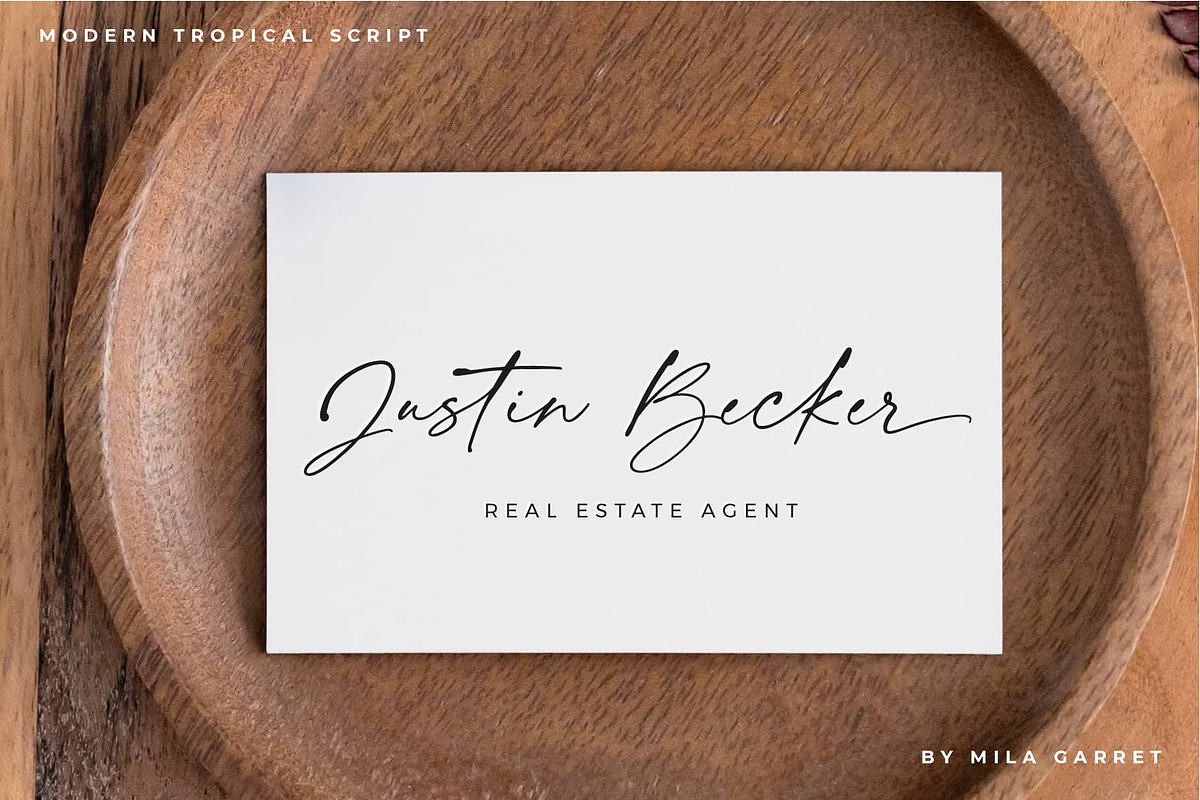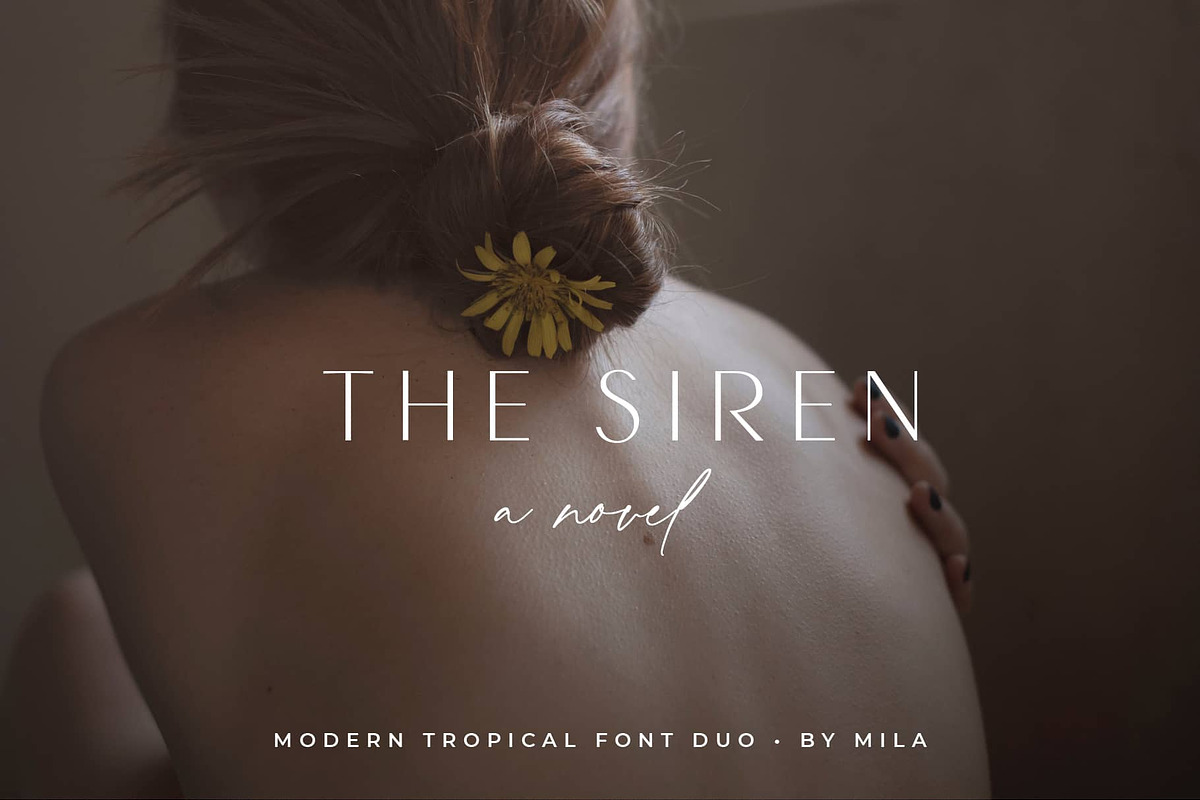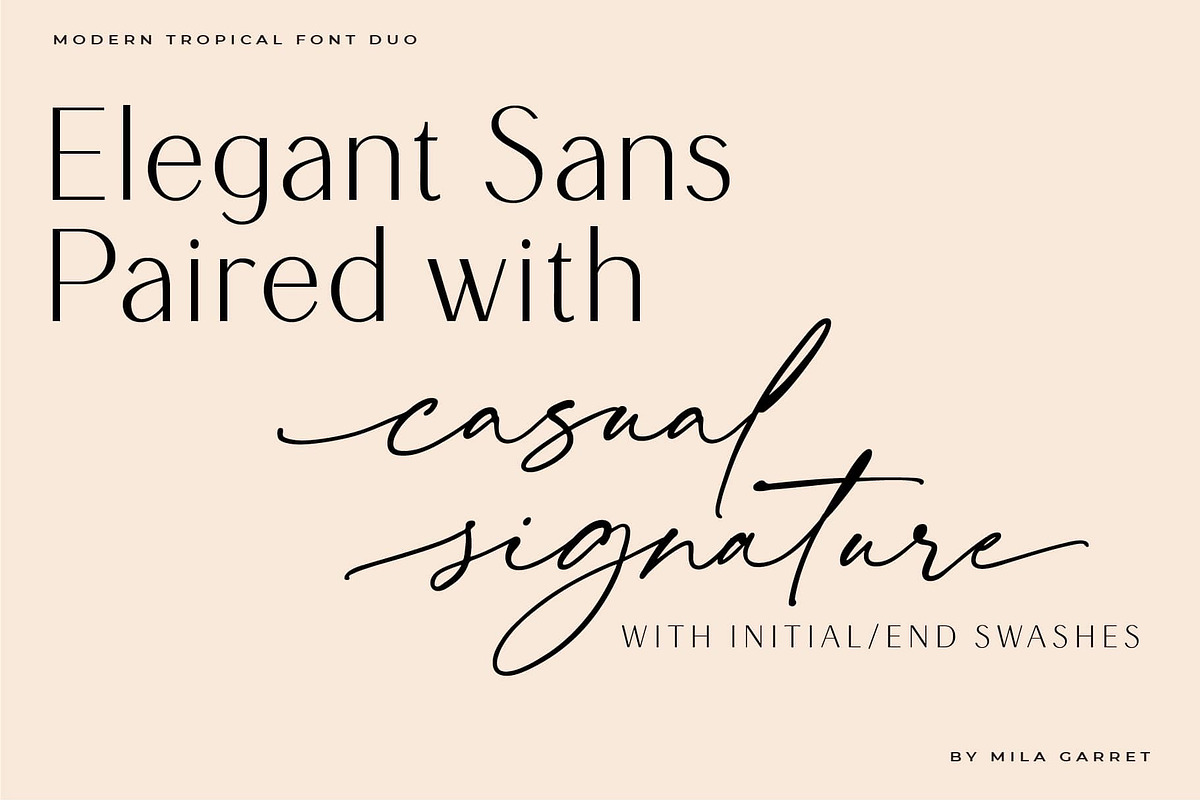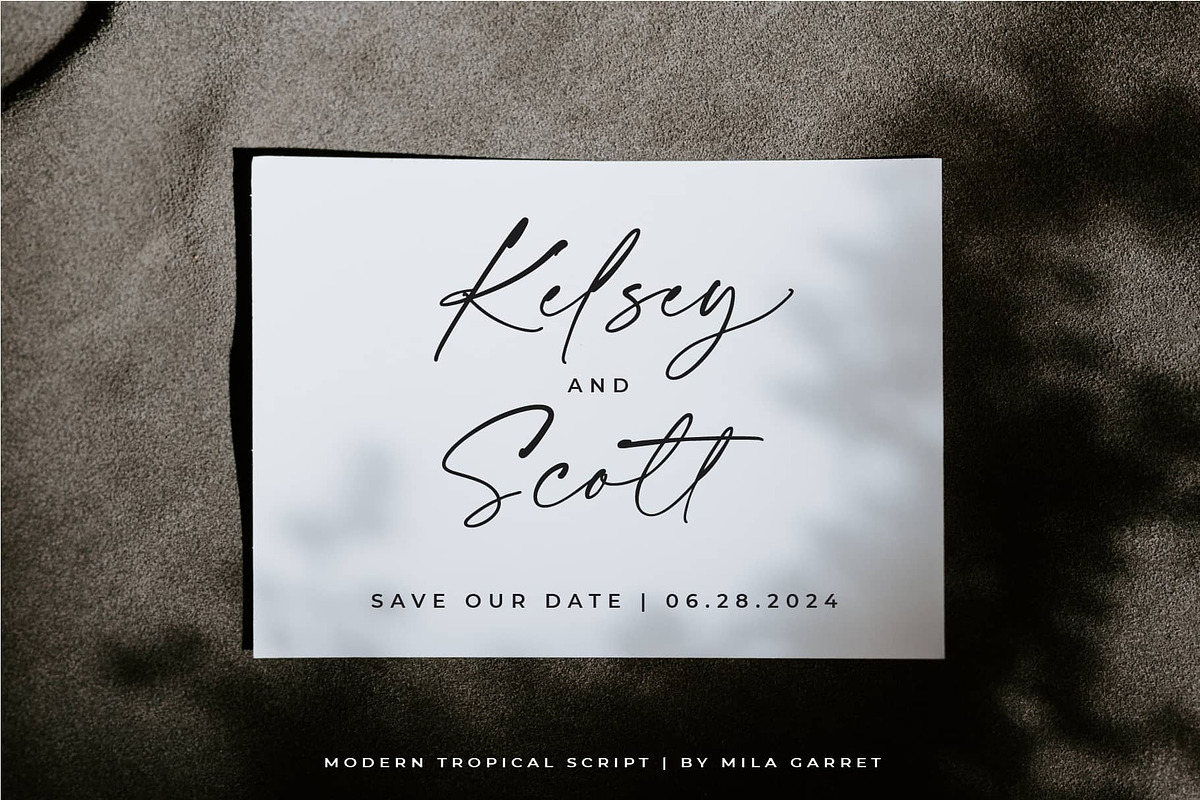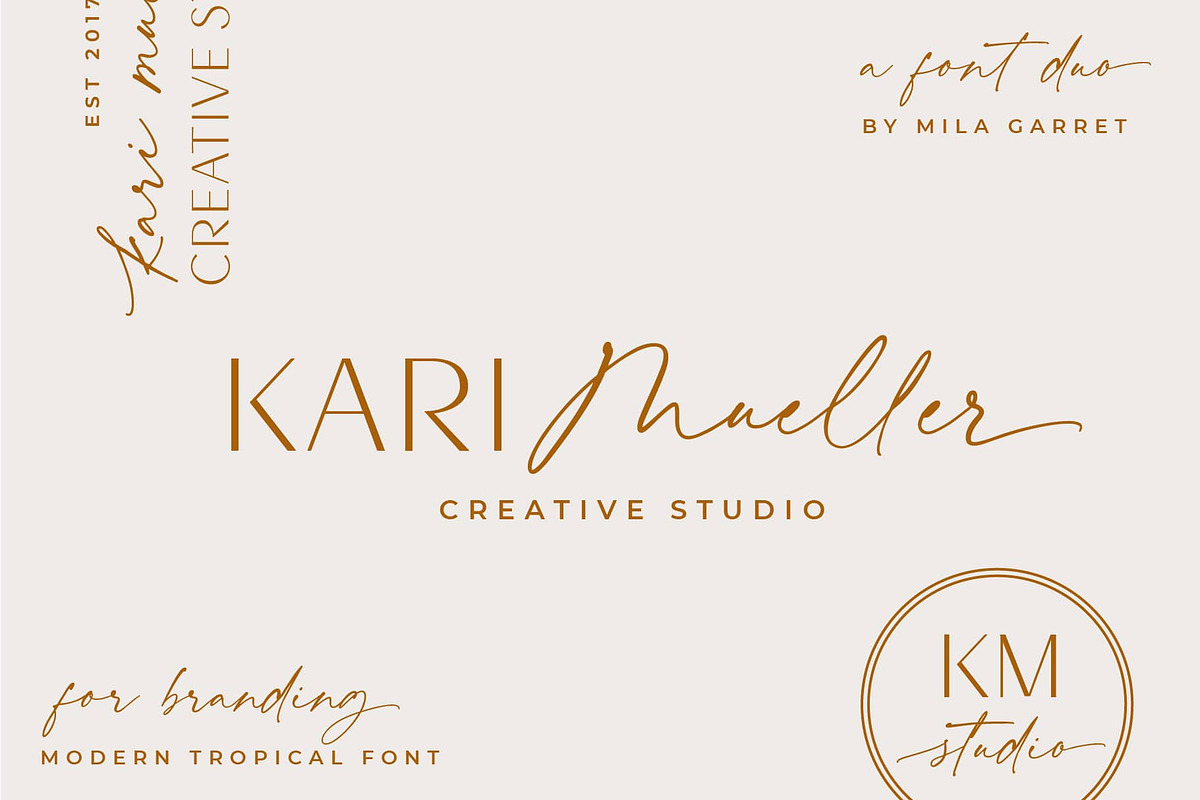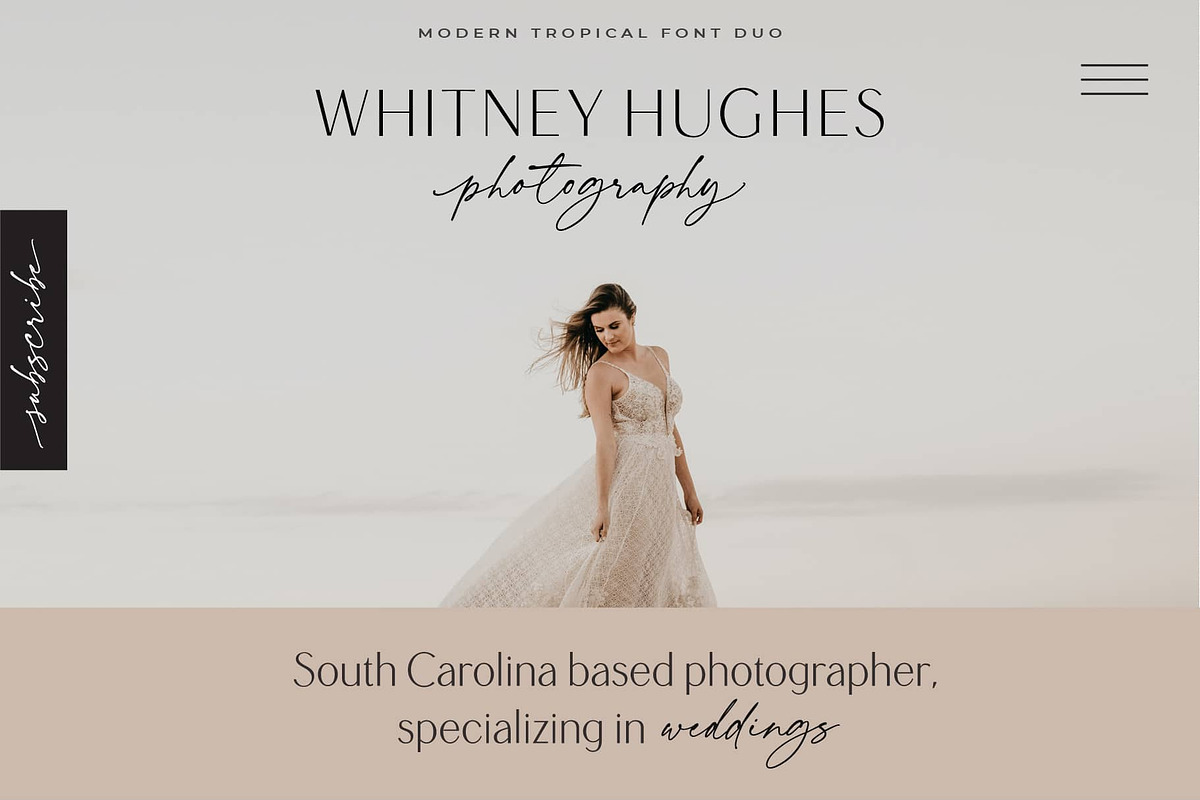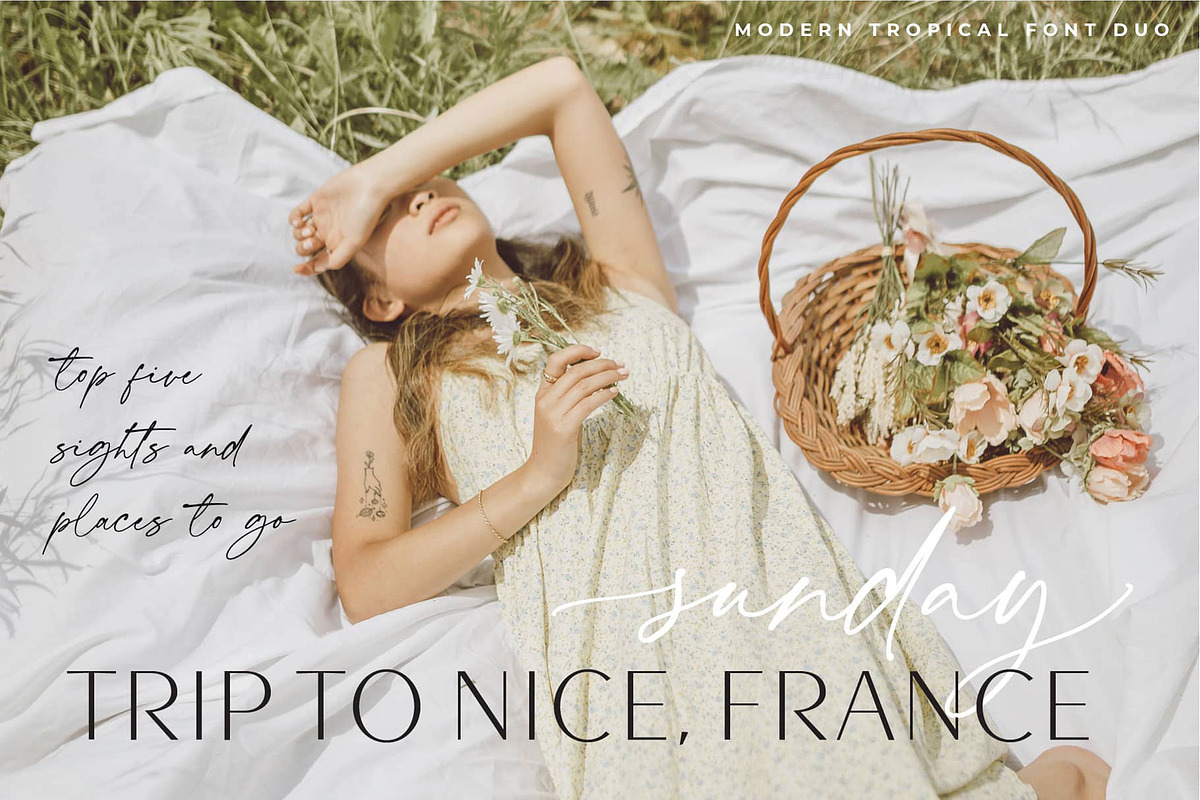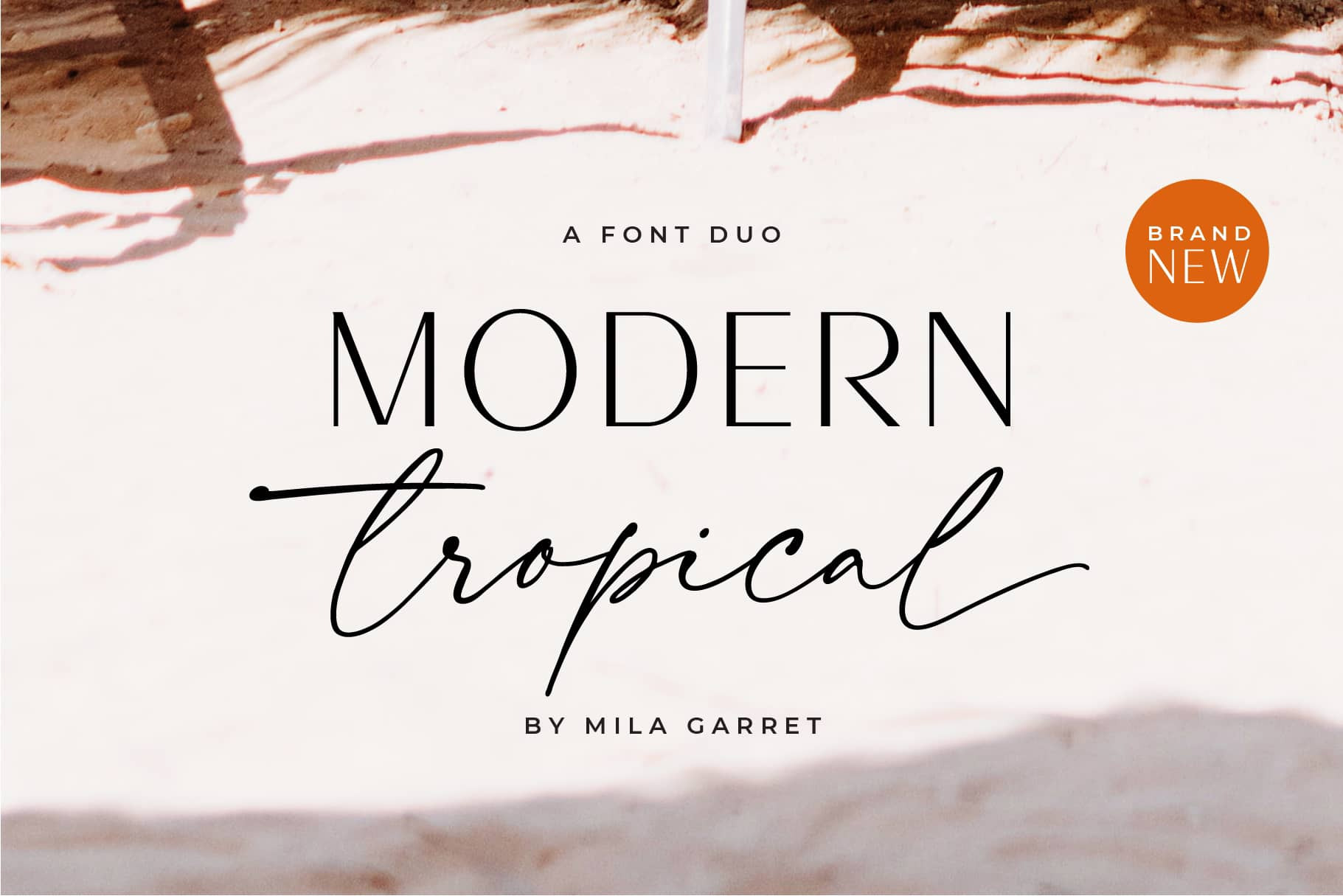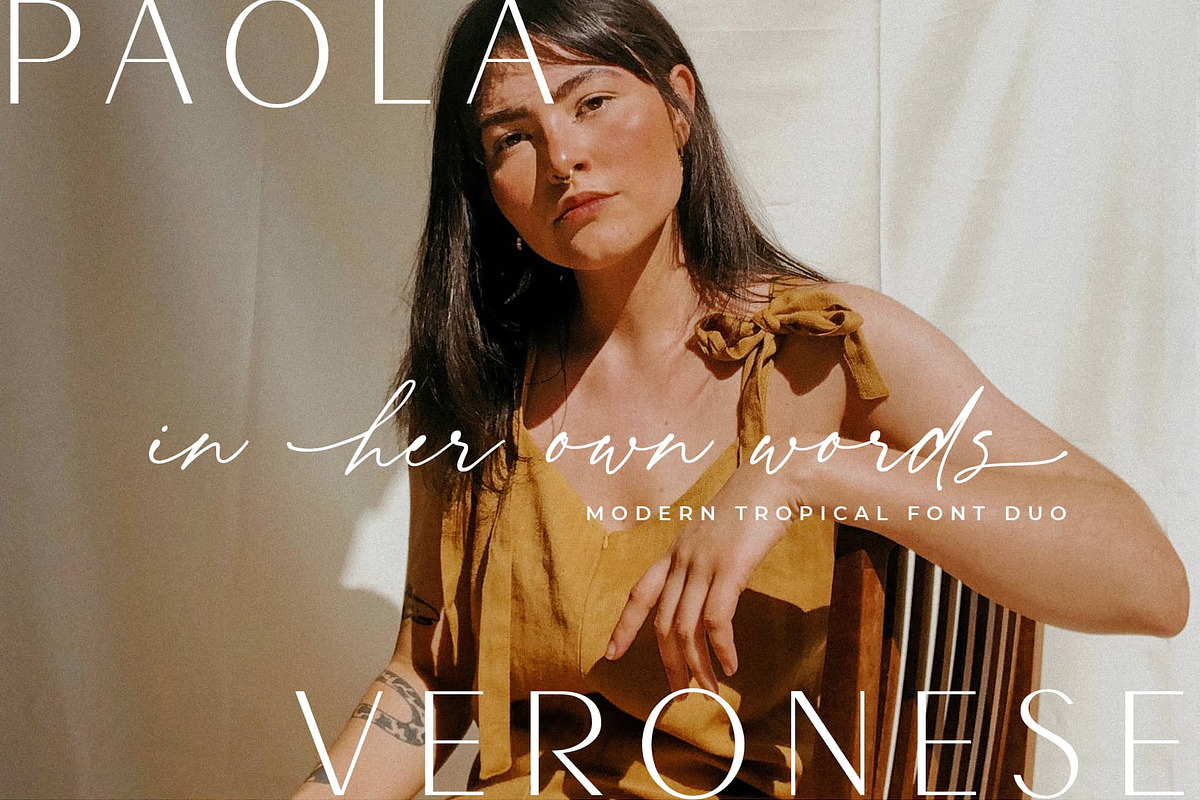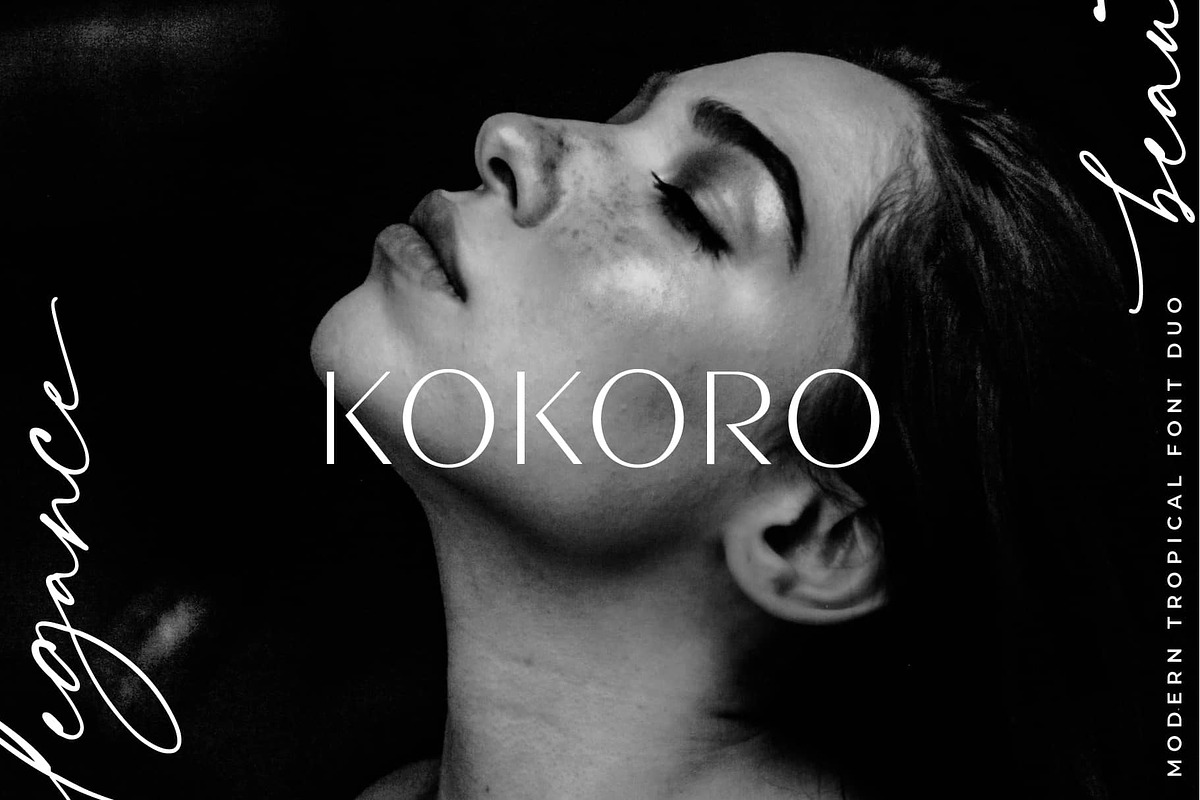
Modern Tropical Font Duo Logo Script
Meet Modern Tropical Font Duo: A minimalist and modern sans-serif typeface paired with an inky, classy handwritten script. With casual elegance, Modern Tropical Font Duo adds a luxurious and clean touch to websites, logos, branding identity, social media quotes, wedding stationery, and whatever else your heart dreams up!
Take the trouble out of finding a font pairing by using Modern Tropical Font Duo, where the sans and script are made to match!
Harlow Font Duo Features
- Full Set of standard alphabet and punctuation
- 28 Ligatures in Modern Tropical Script